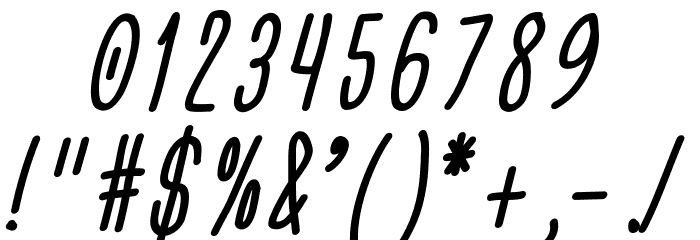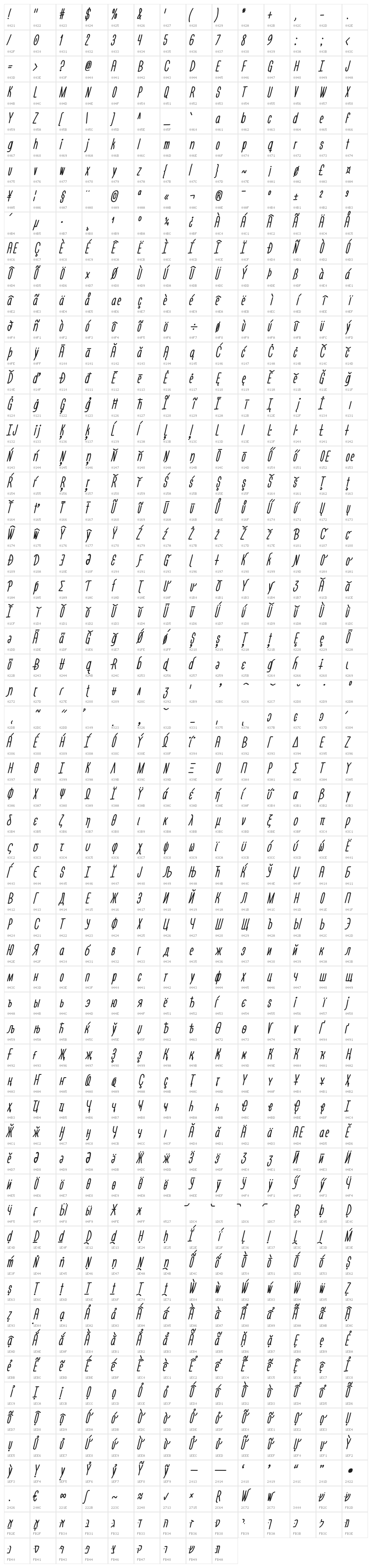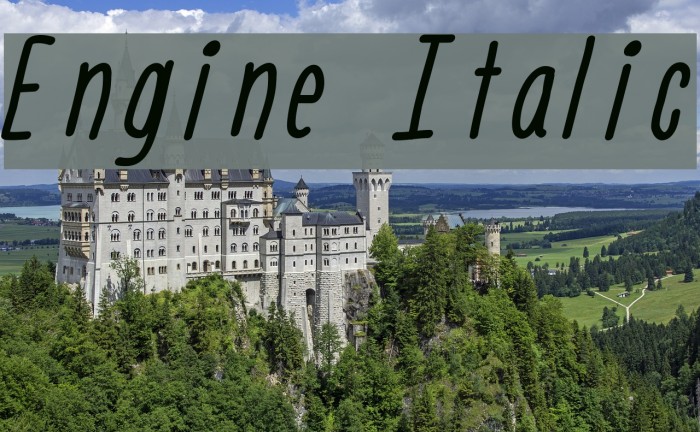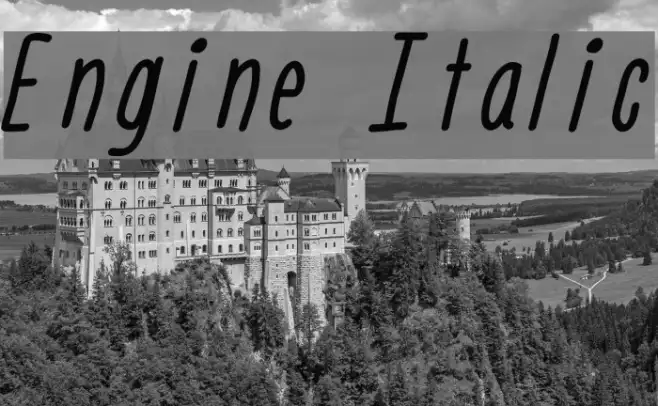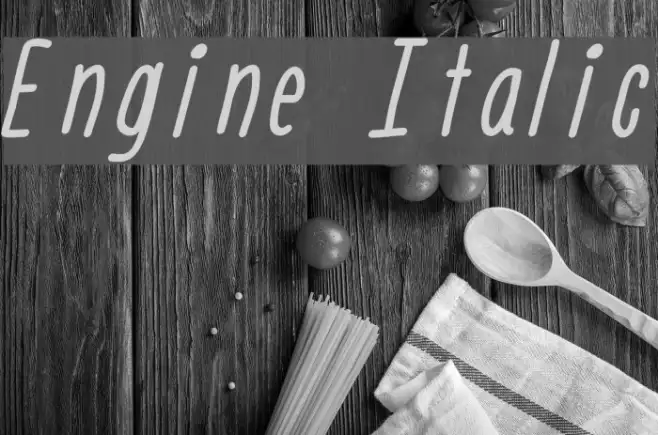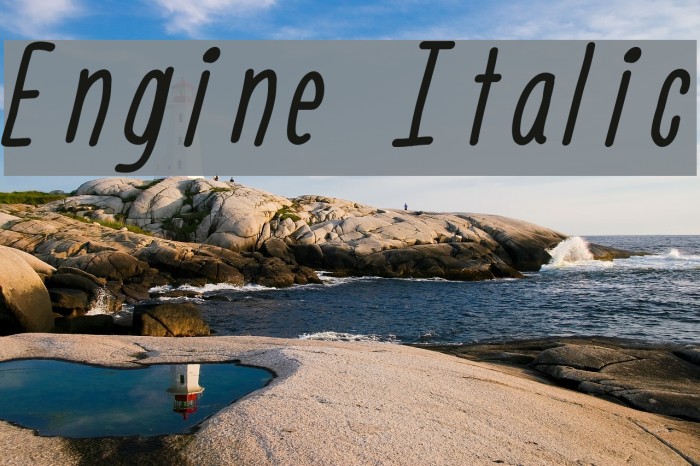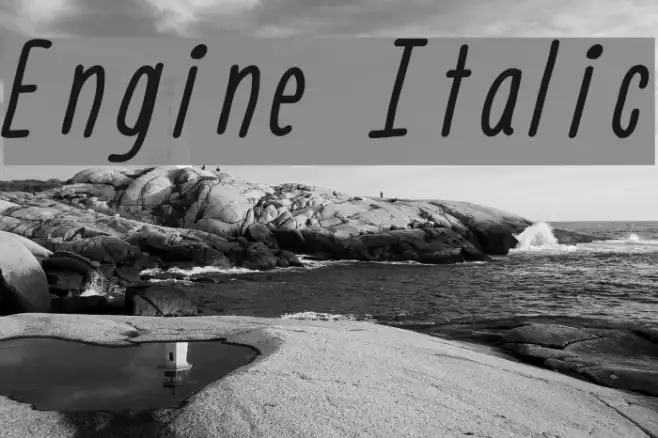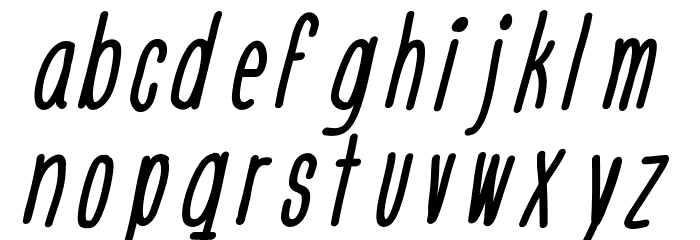
Engine Italic Font
Engine Italic Description
This font features a dynamic and energetic italic style, characterized by its slanted and elongated letterforms. The strokes are smooth and fluid, giving it a sense of motion and speed. The uppercase and lowercase letters maintain a consistent slant, enhancing the cohesive look of the typeface. The numerals and special characters follow the same italicized design, ensuring uniformity across all glyphs. This font's design is both modern and playful, making it suitable for projects that require a lively and engaging appearance.